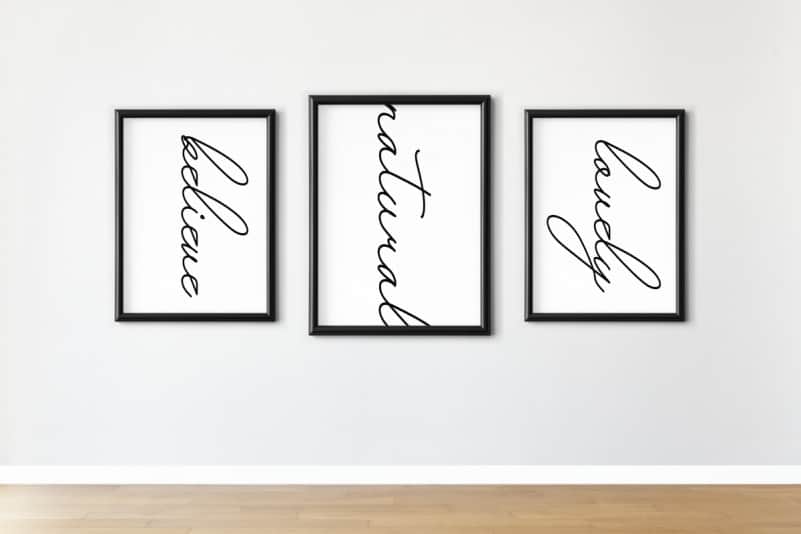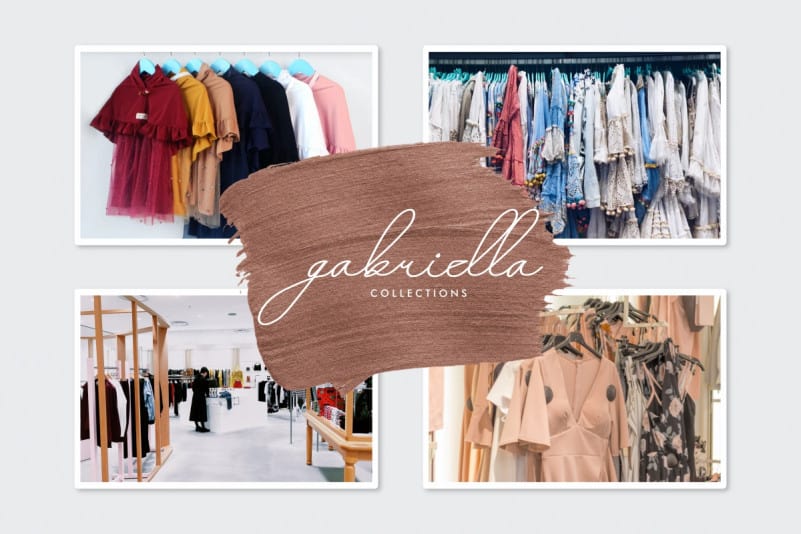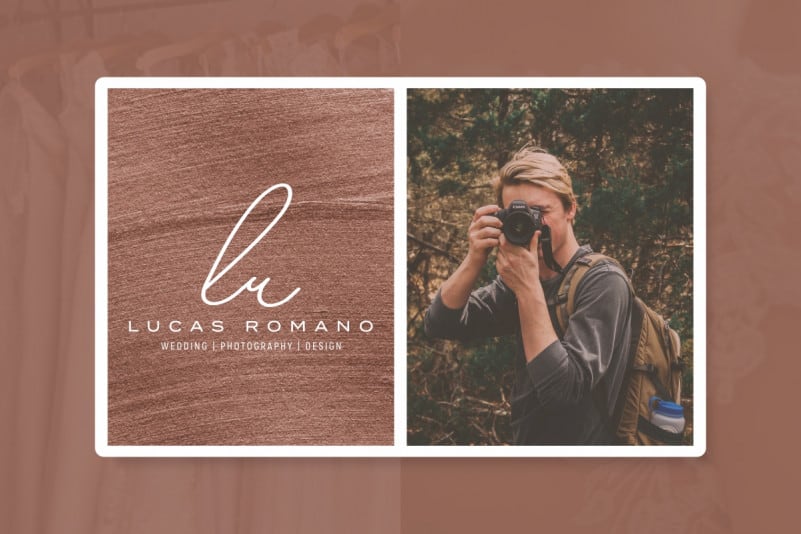
Wulandari Handwriting Font
Wulandari Handwriting Font is a monoline signature handwriting script Font with elegant style. The theme of this font are casual, modern, elegant, luxury, handwritten, classic and simple lettering.